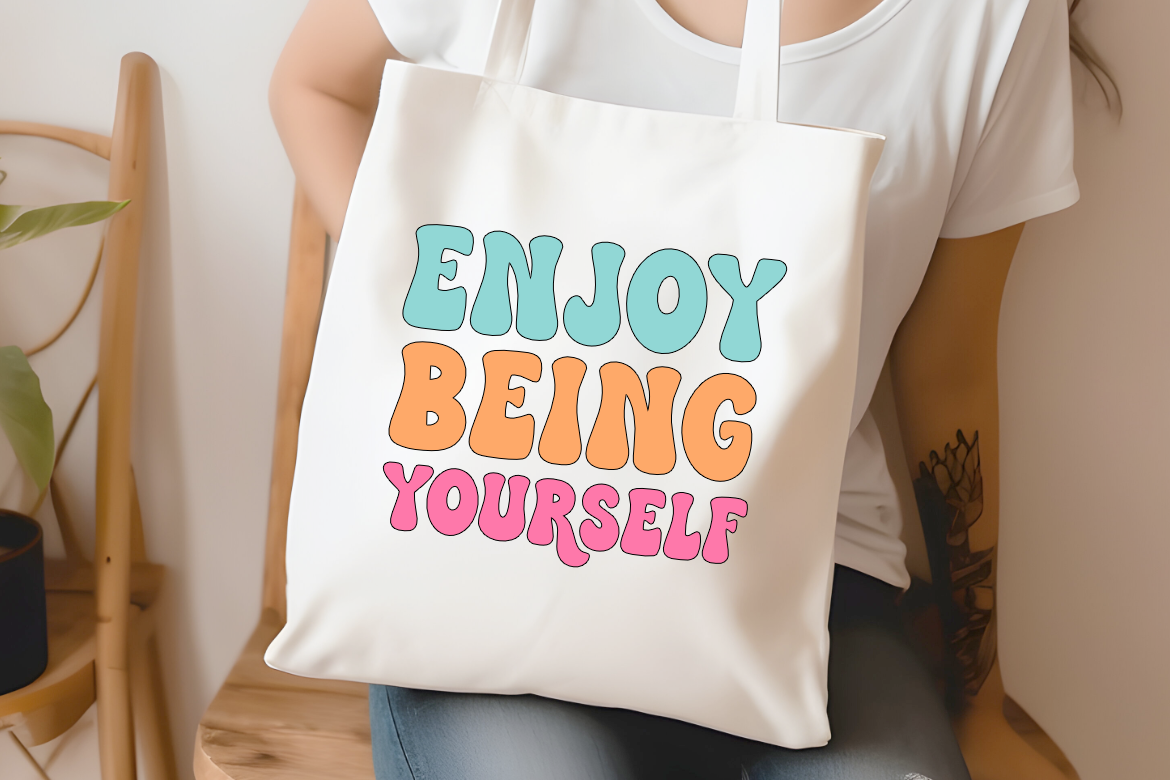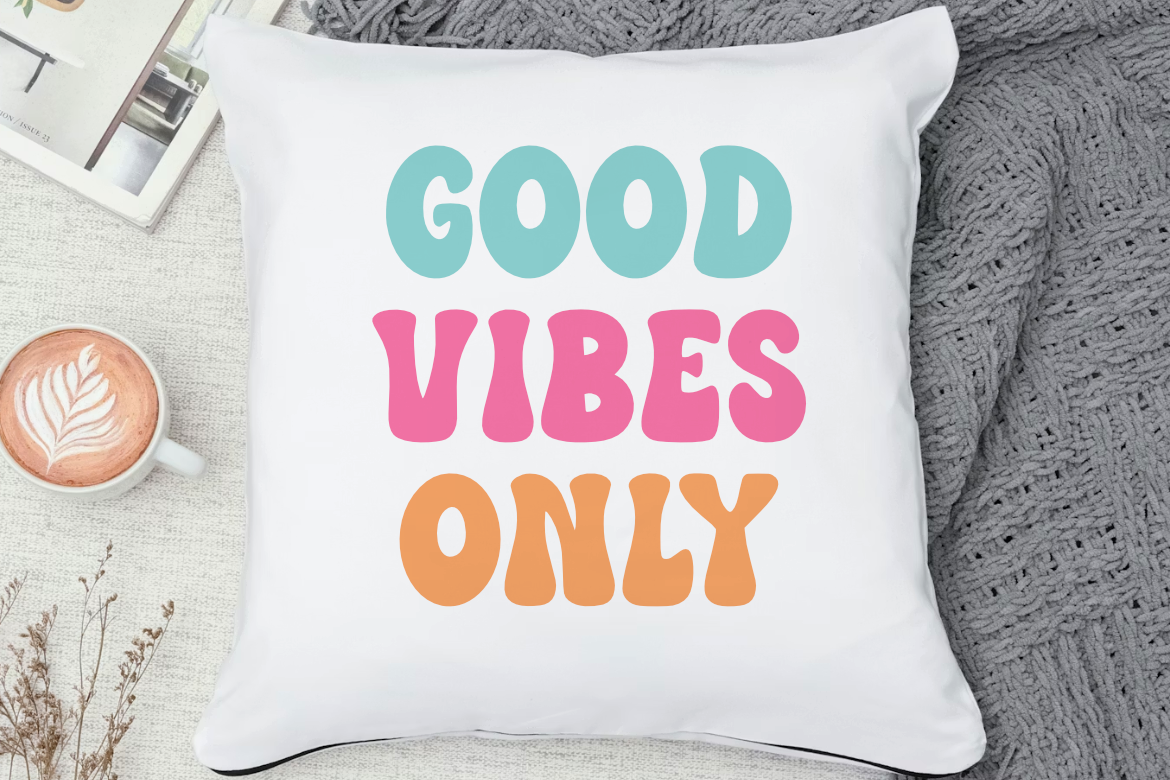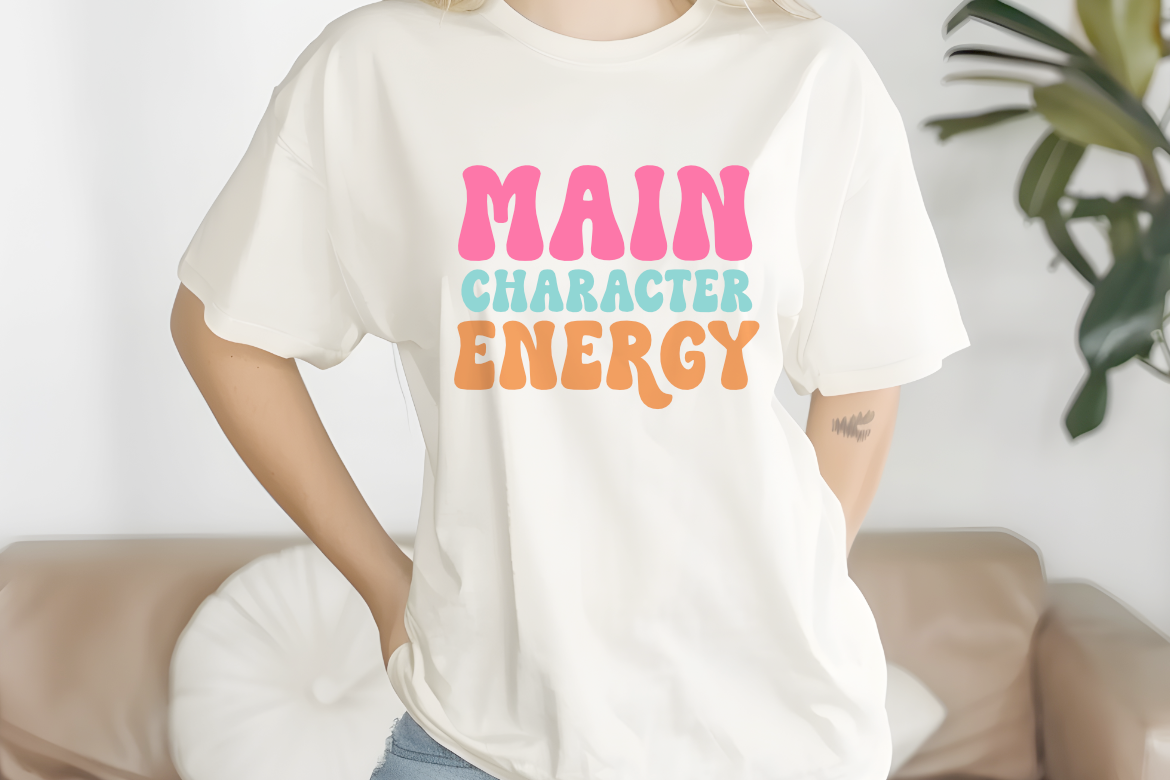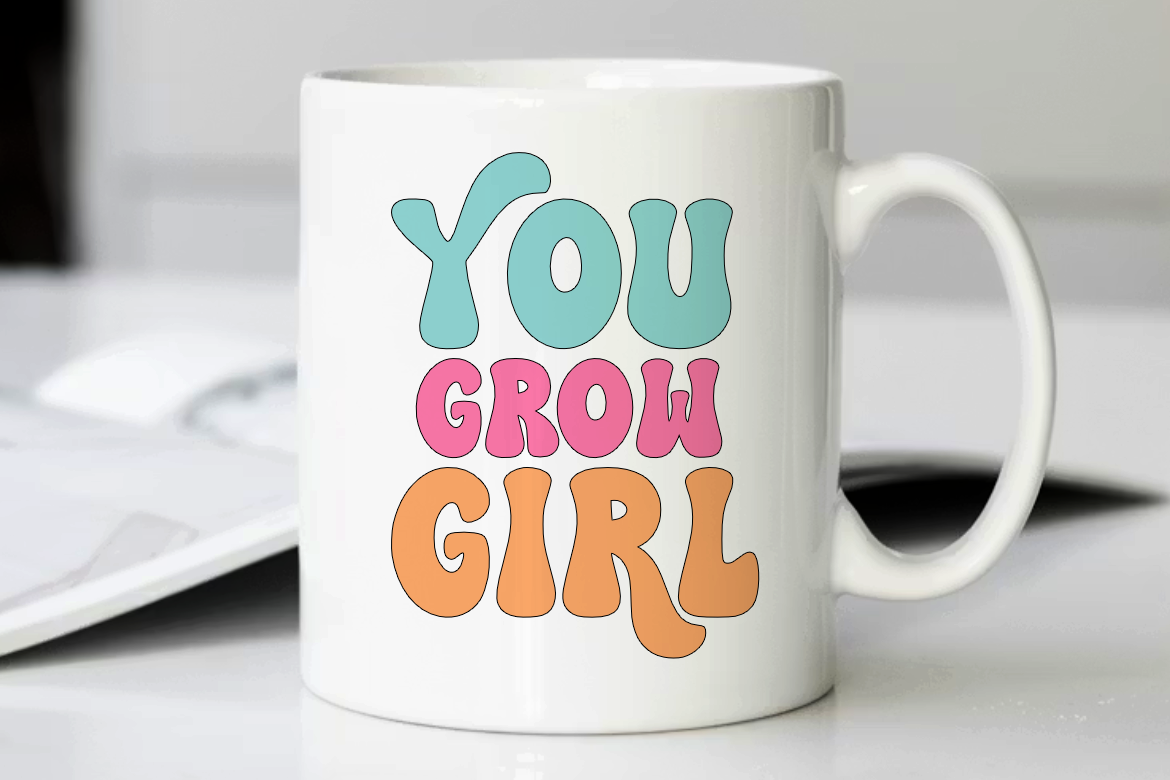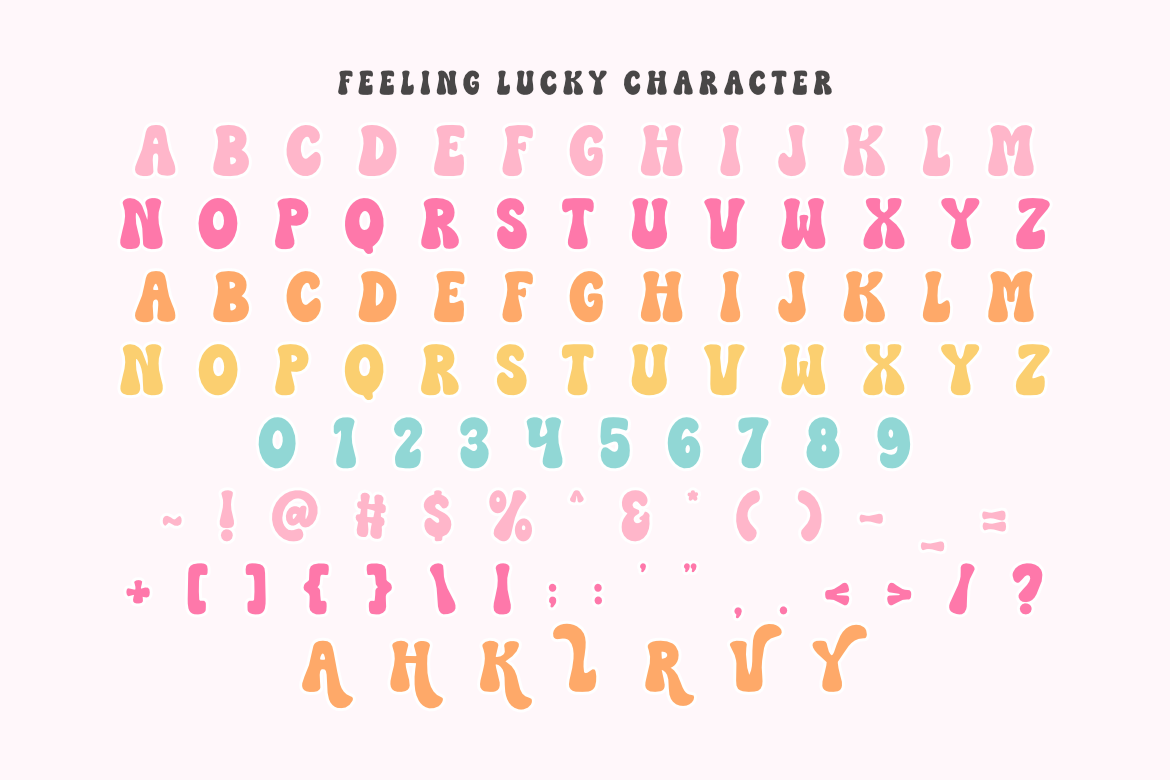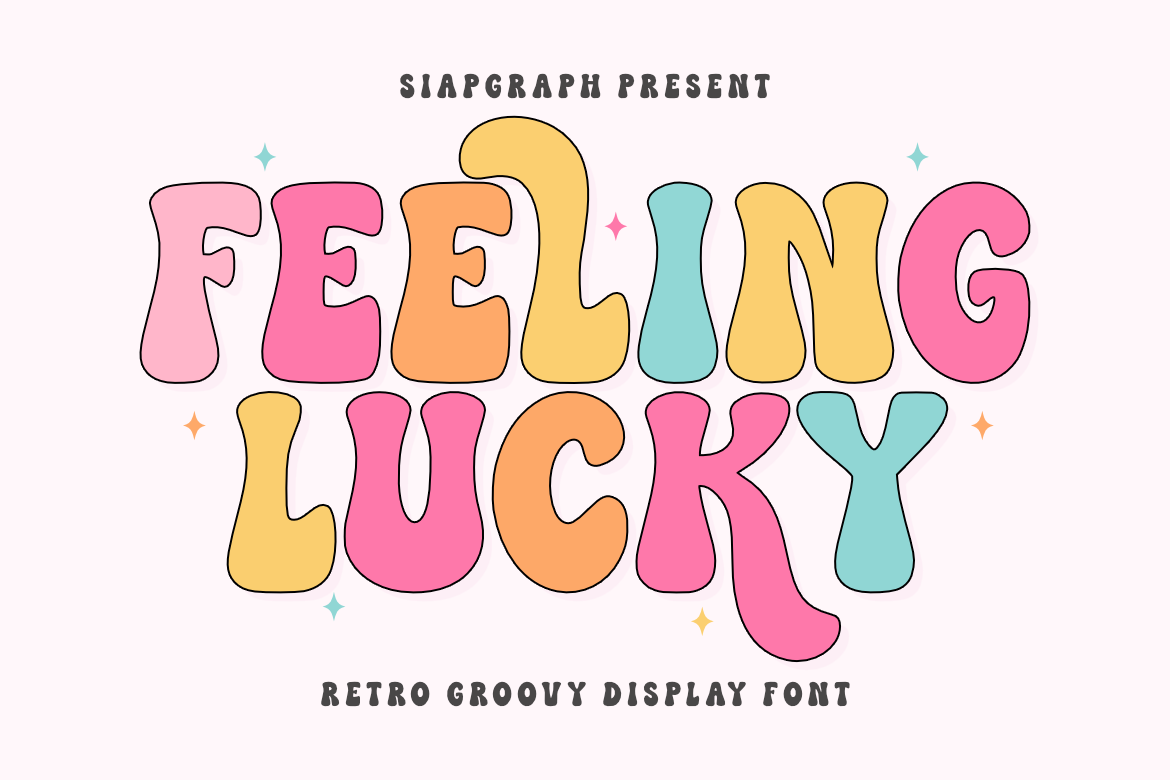
Feeling Lucky - Retro Groovy Font for Cricut and Sublimation
Retro Groovy Handwriting Display Font for Cricut and Sublimation
Feeling Lucky is a retro groovy display font inspired by the vibrant, bubbly aesthetic of 1970s typography and a playful, optimistic spirit. Featuring soft, rounded curves and a fun, bouncy rhythm, this typeface is designed to bring a nostalgic yet modern charm to your creative projects.
This font is a must-have for the Craft, POD (Print On Demand), and DIY communities. Its thick, bold structure and smooth edges make it exceptionally easy to use for vinyl cutting, weeding, and high-quality sublimation.
Perfect for: creating eye-catching SVG cut files, custom t-shirts, adorable stickers, personalized mugs, nursery wall art, social media quotes, tote bags, and playful branding projects. It’s also ideal for digital scrapbooking, journal headers, and DIY party invitations.
Great for holiday themes such as St. Patrick’s Day, Spring celebrations, Birthdays, and Mother’s Day, adding a joyful, retro, and lucky vibe to every creation!